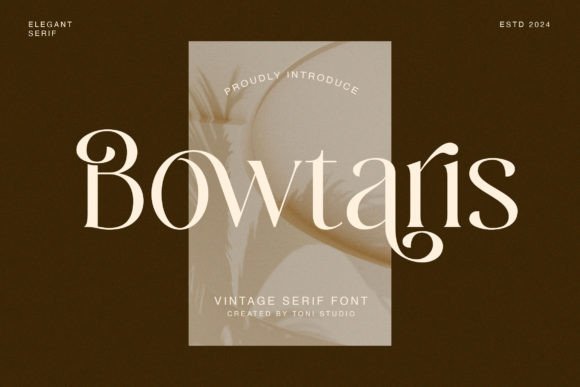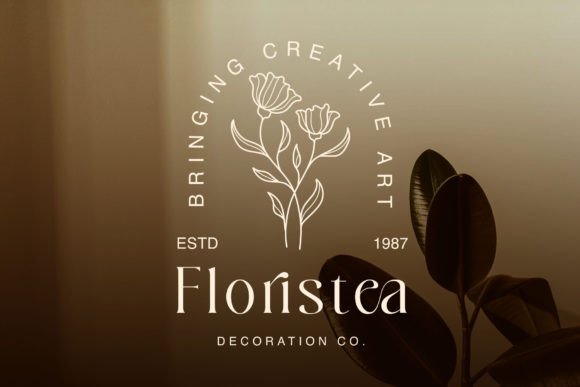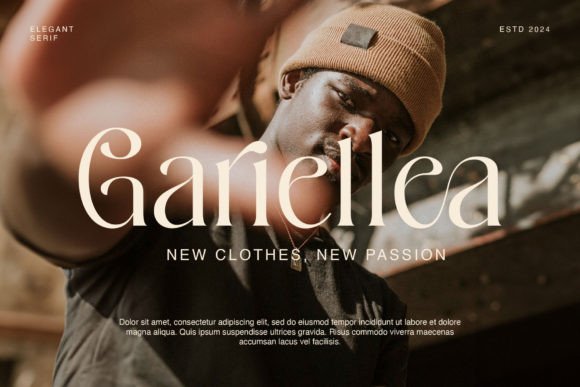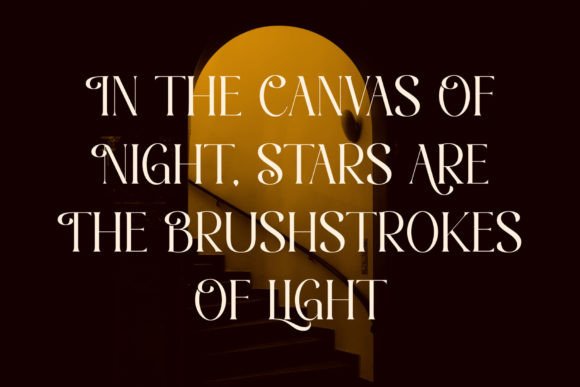
Bowtaris Font: Aesthetic Vintage Serif for Elegant Branding & Logo Design
About the Bowtaris Font
From logos to headlines, the Bowtaris Font is the perfect choice for making a lasting impression. Presenting Bowtaris, an aesthetic vintage serif font with a sparkle of elegance.
A classic design that brings timeless charm, reminiscent of traditional typefaces from the past.
Bowtaris excels in headline applications, short paragraphs, and branding projects requiring a touch of vintage sophistication. Its elegant serifs work beautifully in logos, invitations, and short-form marketing materials. However, its refined detailing makes it less suitable for body text or UI elements where high readability is paramount. Avoid using it for lengthy content or small sizes.
The slightly condensed character width of Bowtaris lends itself to a strong visual impact. For a balanced aesthetic, pair it with a clean sans-serif like Open Sans for body copy, or a more geometric sans-serif such as Montserrat for a modern contrast. A playful script font could also work well for secondary text elements, adding a layer of visual interest without clashing with Bowtaris’s inherent elegance.
Overall, Bowtaris projects a refined and timeless personality. It’s ideal for brands that wish to evoke a sense of heritage, quality, and understated luxury. Its classic charm makes it a versatile choice for projects needing a touch of vintage elegance without sacrificing readability in key areas.
Bowtaris Font Usage Examples
Bowtaris Font Example